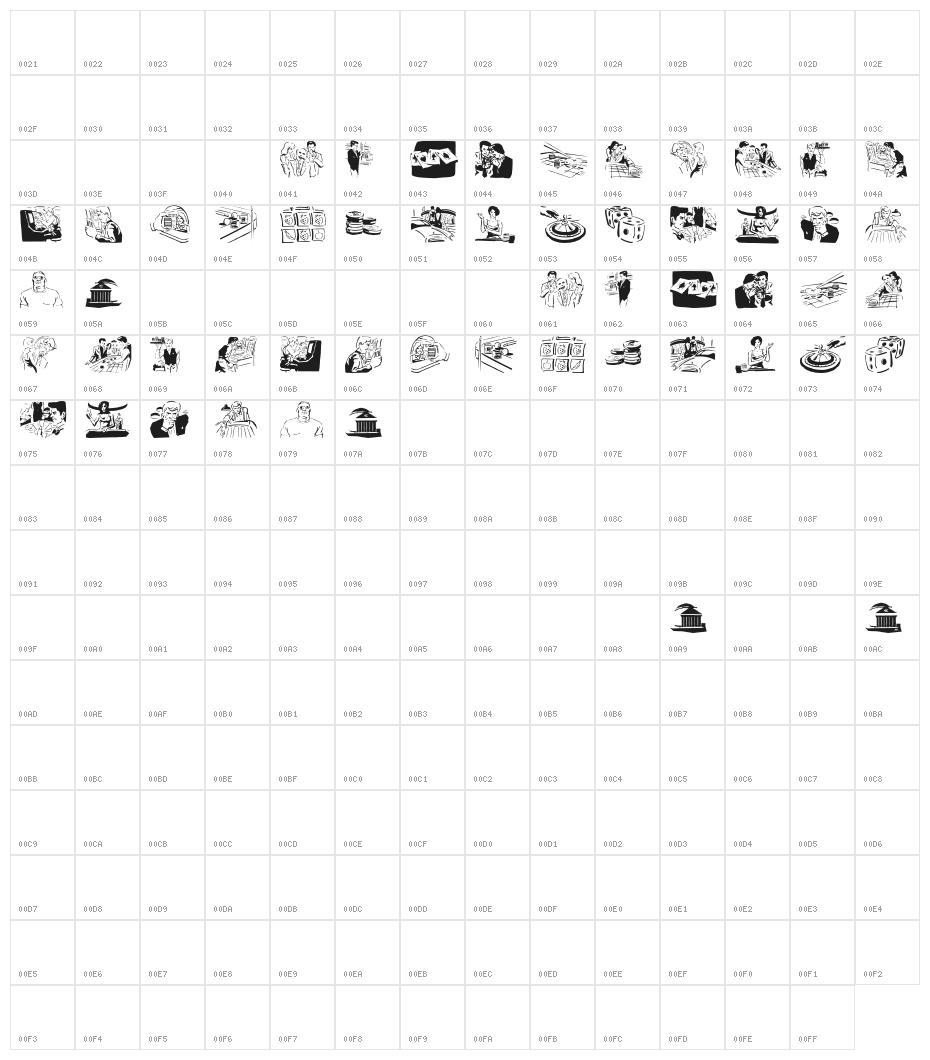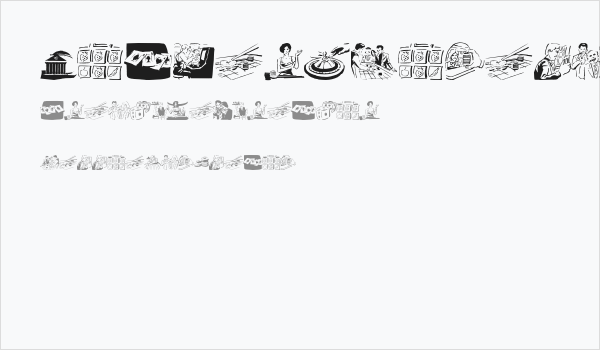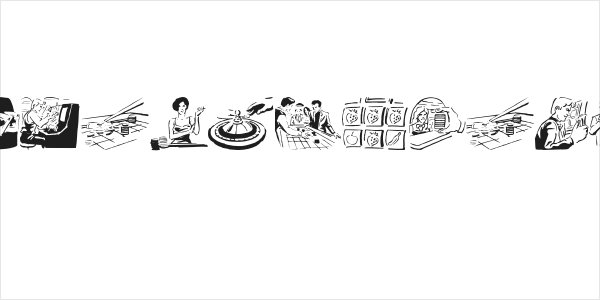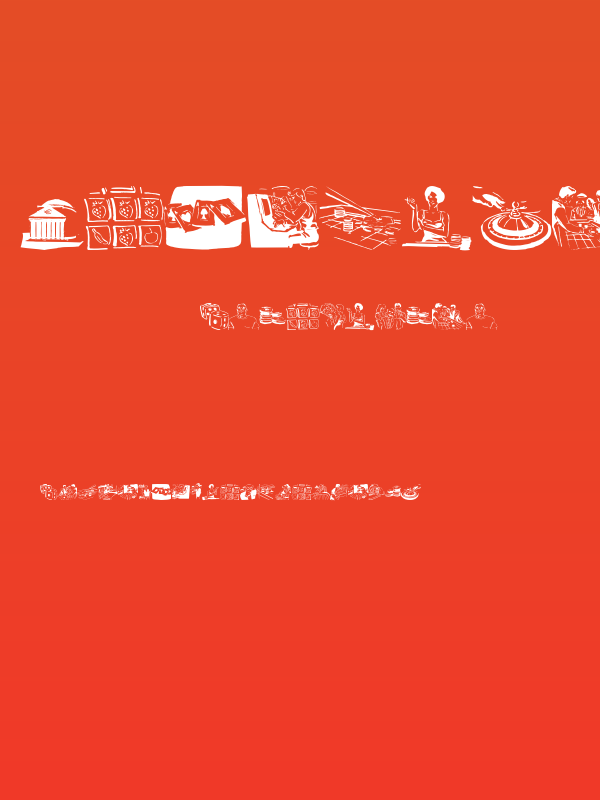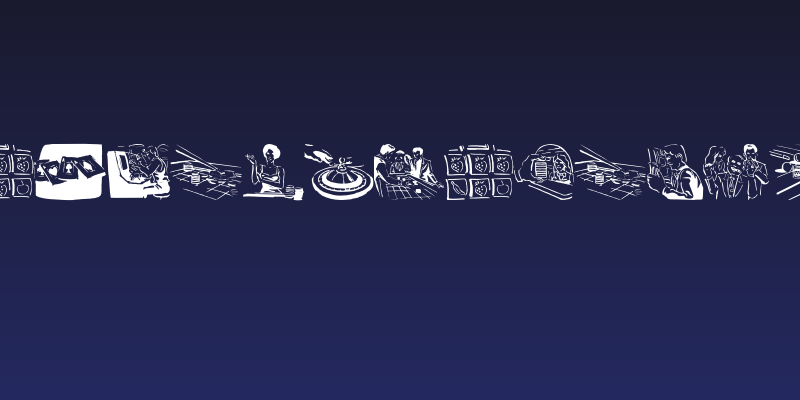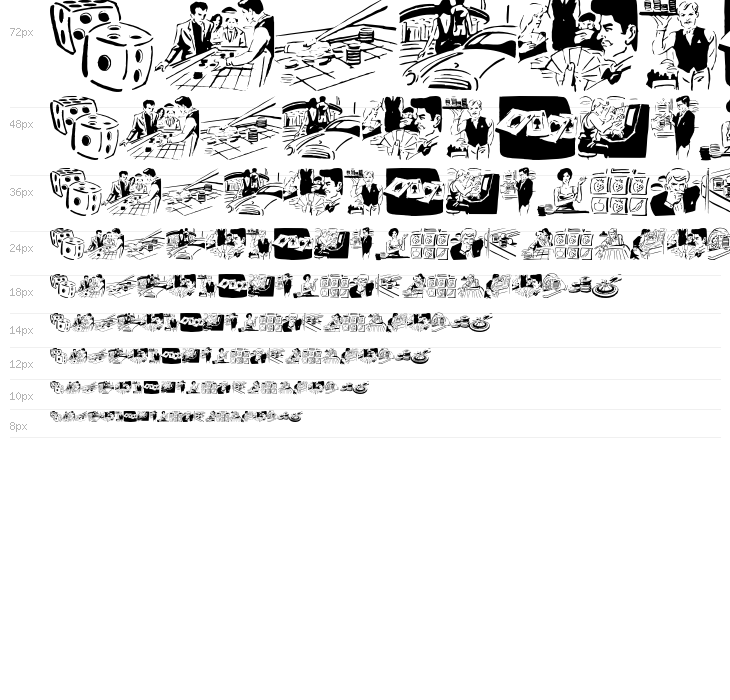
ZockersHomeland Font
ZockersHomeland Description
A decorative display font composed entirely of detailed black-and-white illustrations depicting various scenes of people, objects, and activities, each representing a different character. The glyphs are highly illustrative and complex, making each letter or symbol a miniature scene rather than a traditional typographic form.
| Overall Style | Decorative, Vintage, Illustrative |
| Use Case | Logos, Headlines, Posters, Art projects |
| Proposed Projects | Posters, editorial illustrations, creative branding, themed event materials, novelty projects. |